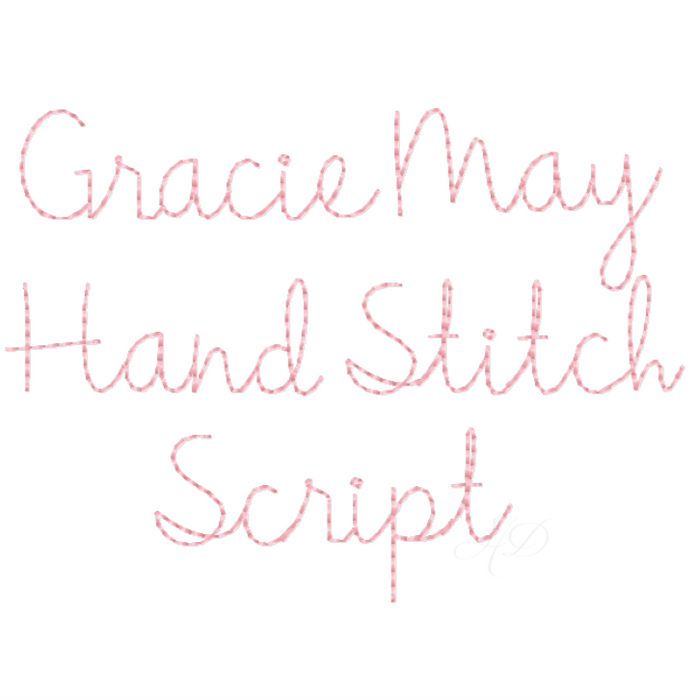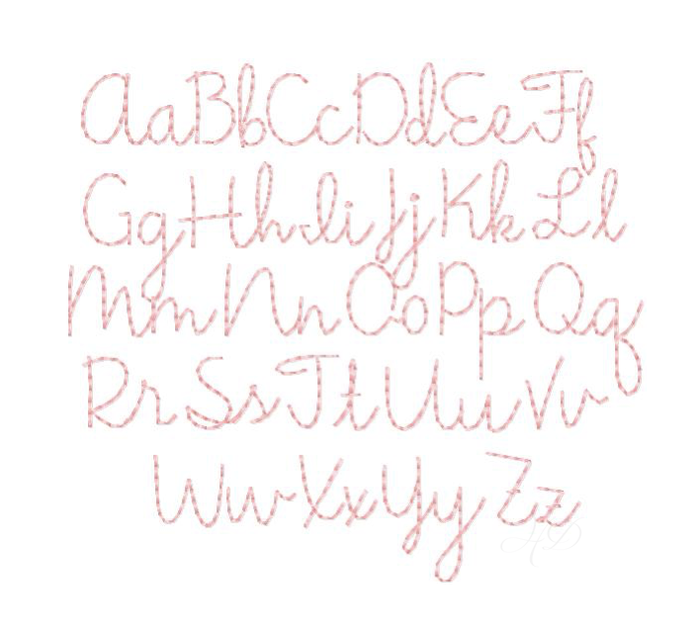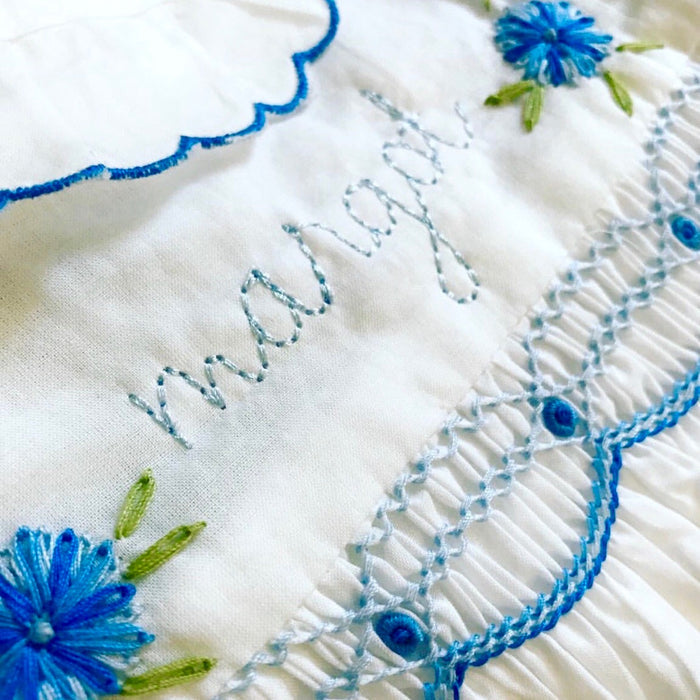
Gracie May Embroidery Font Package
Transform your projects with the Gracie May Embroidery Font Package, designed for crafters who seek unique and stylish lettering. This package includes eight sizes that feature a charming hand-stitched or vintage embroidery style, perfect for monogramming. Each font is available in uppercase and lowercase, making it versatile for various applications.